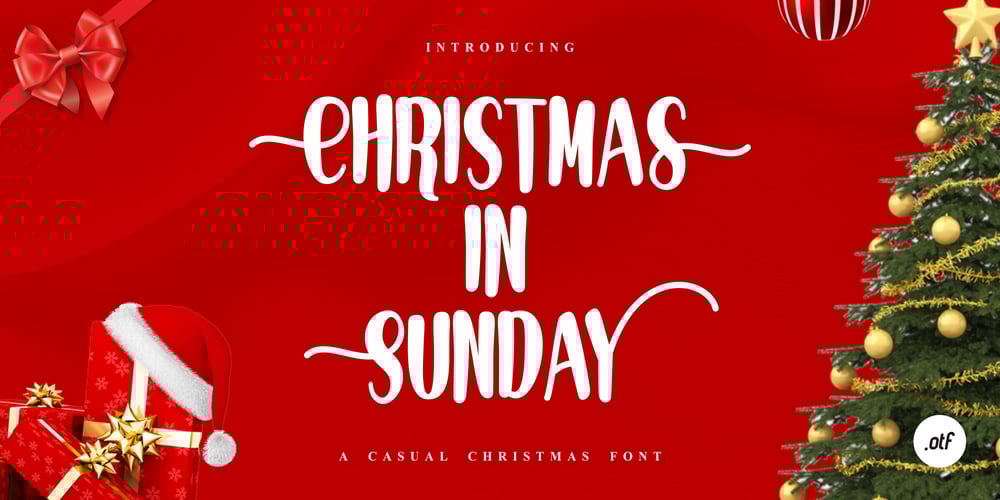
Christmas In Sunday
Christmas In Sunday font
Christmas In Sunday Font Family was designed by Akhmad Afandhi and published by Evo Studio. Christmas In Sunday contains 2 styles and family package options. Experience the festive charm of Christmas In Sunday, a distinctively delightful Christmas display font. This font stands out with its adorable tail characters, lending a whimsical appeal to any Christmas-themed project. Its highly versatile style makes it an ideal choice for crafting standout designs. Christmas In Sunday shines in branding and logo creation, invigorating invitations and stationery, enhancing social media posts, perfecting product packaging, creating captivating blog designs, fascinating game titles, and appealing merchandise. It also brings a touch of magic to book titles/covers and enhances any design that demands a cute, playful style. Moreover, it serves as the quintessential Christmas font that will spotlight your creativity. Embrace the versatility of Christmas In Sunday and elevate your designs to the next level of sophistication and charm.